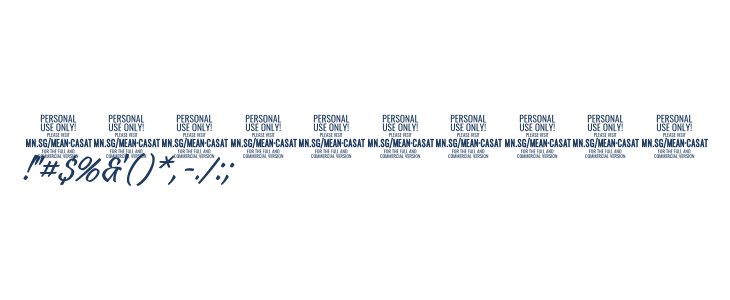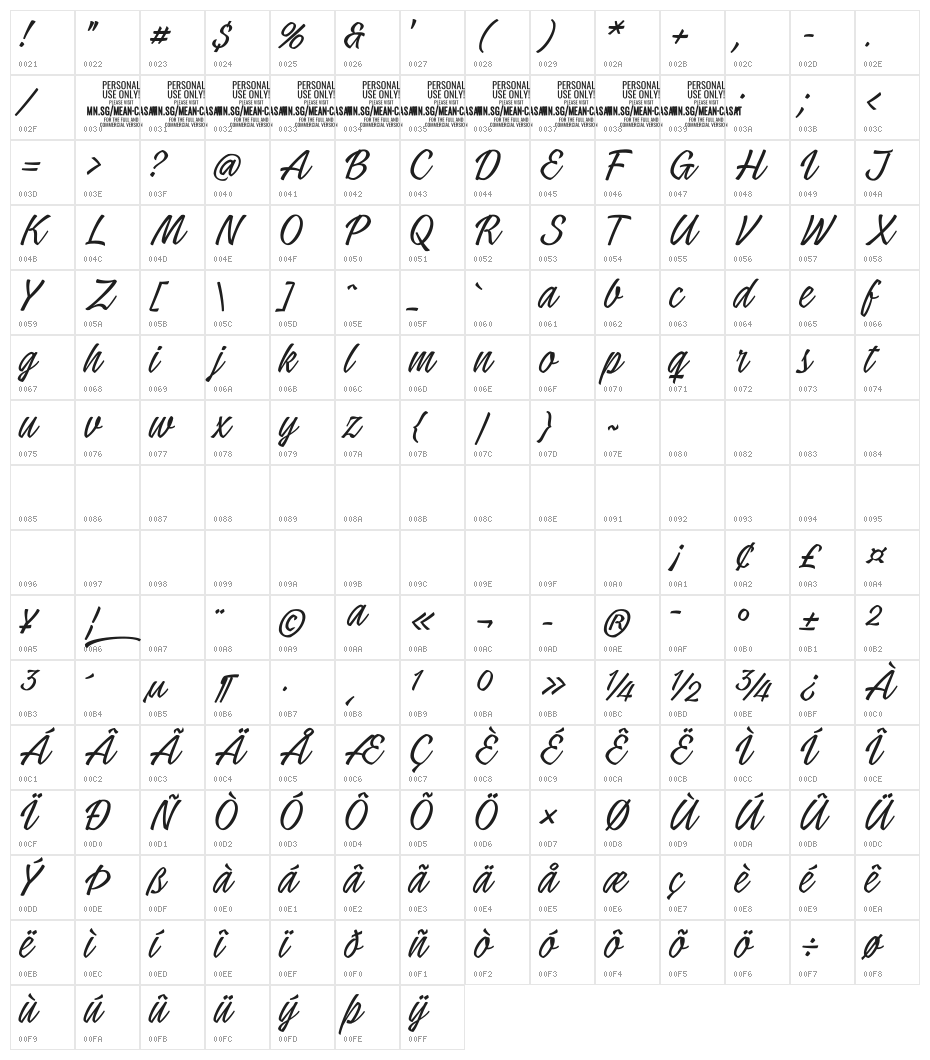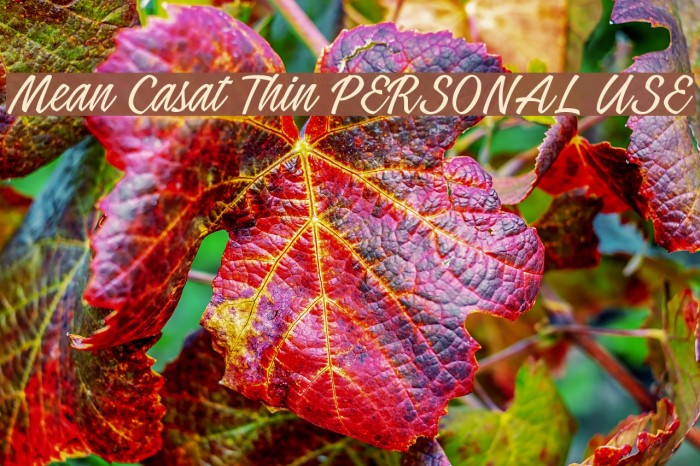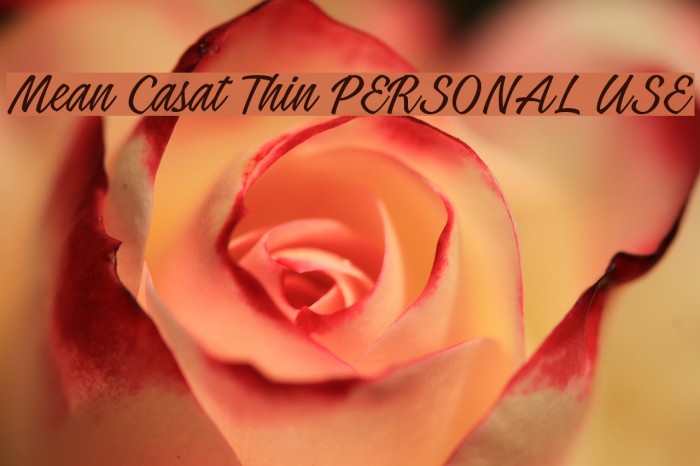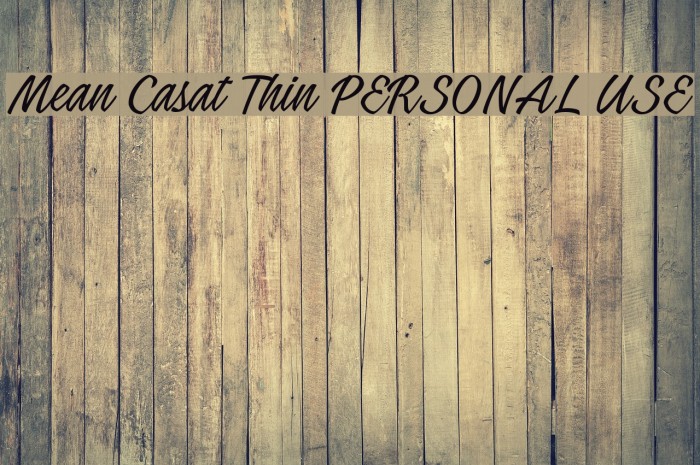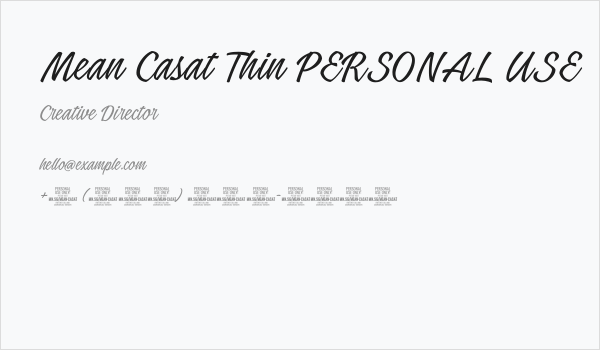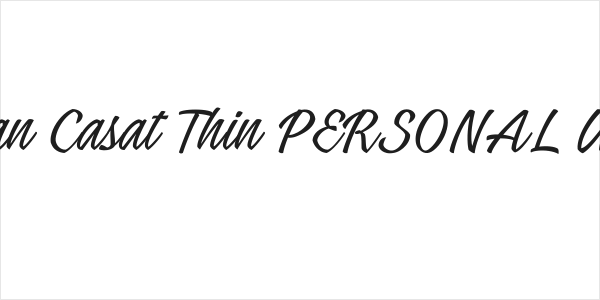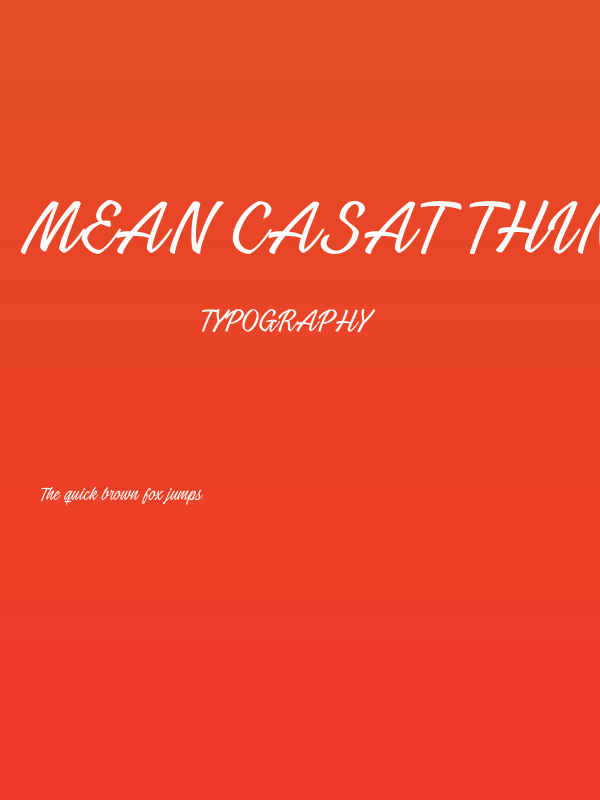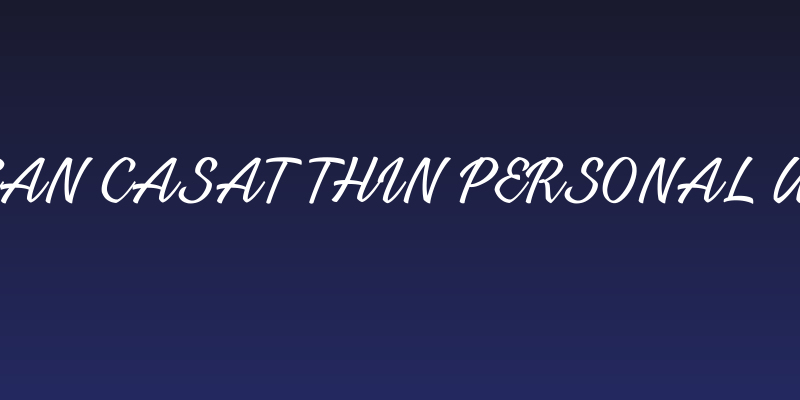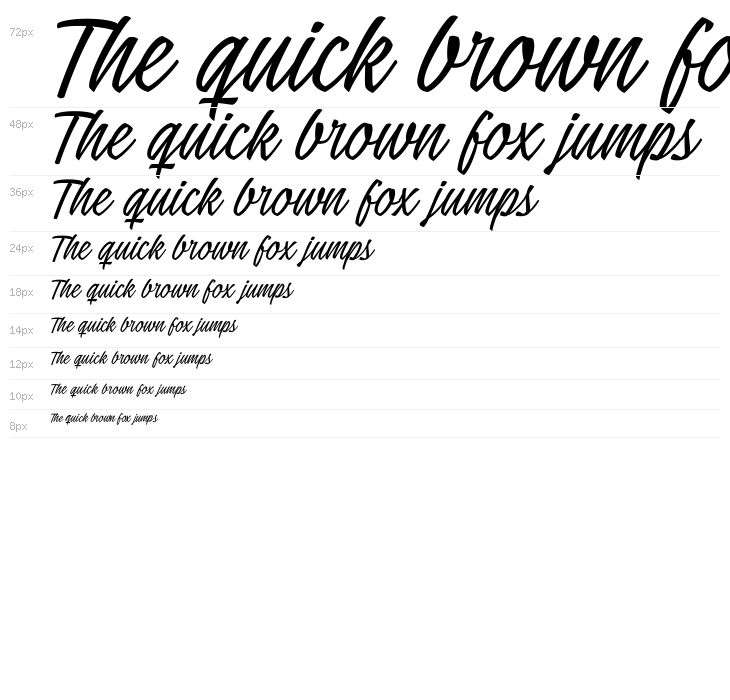
Mean Casat Thin PERSONAL USE Font
Mean Casat Thin PERSONAL USE Description
This font features a dynamic and flowing script style, characterized by its elegant, cursive letterforms. The uppercase letters are bold and slightly slanted, giving a sense of motion and fluidity. The lowercase letters maintain a consistent slant, with smooth connections between each character, enhancing the script's cohesive appearance. The font includes a full set of numerals and a variety of special characters, all maintaining the same cursive style. The overall design is modern and stylish, making it suitable for creative and expressive projects.
| Use Case | Logos, Invitations, Headlines |
| Proposed Projects | Ideal for wedding invitations, branding, logos, and social media graphics. |